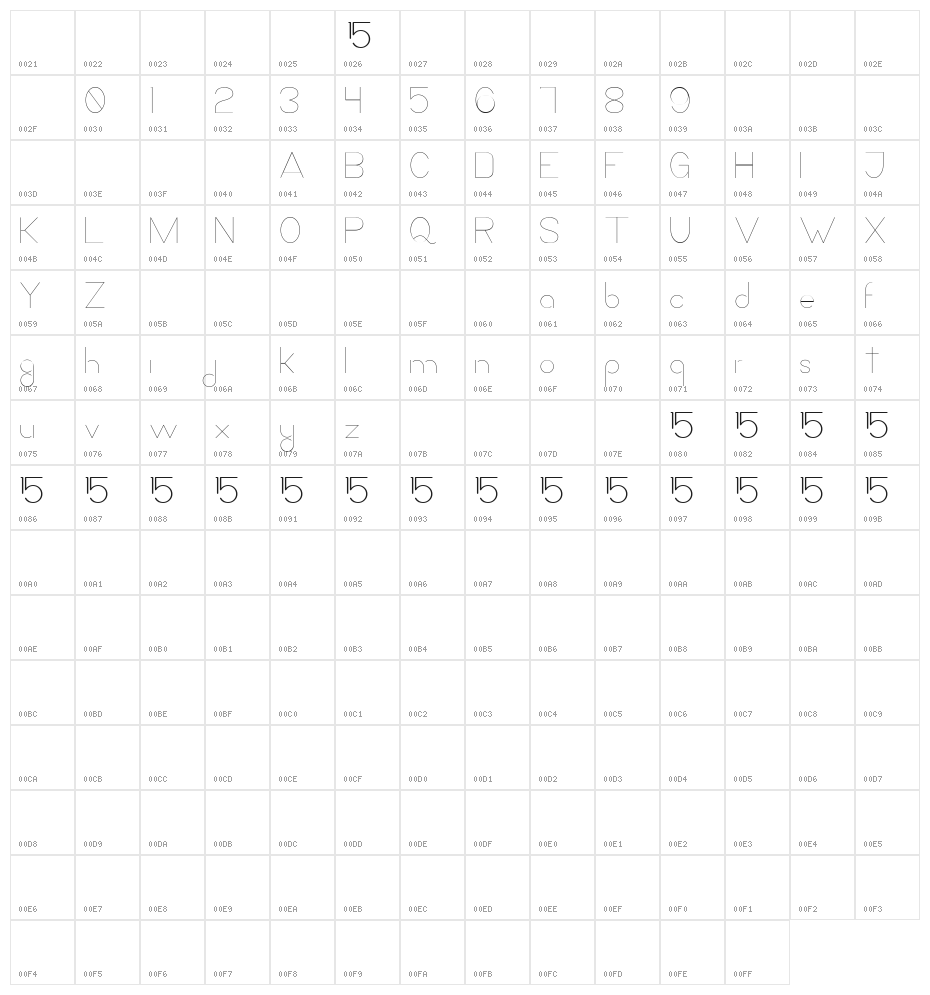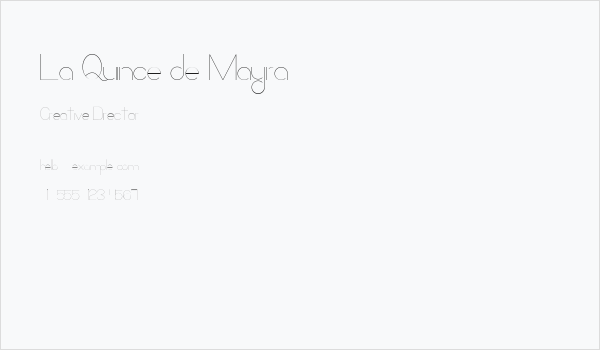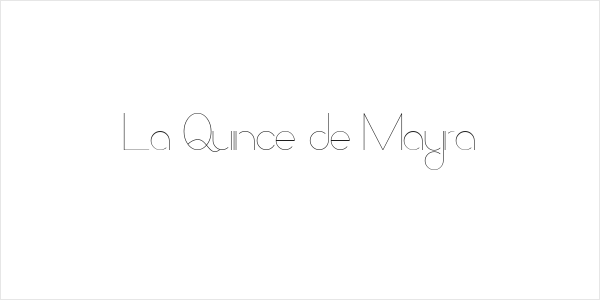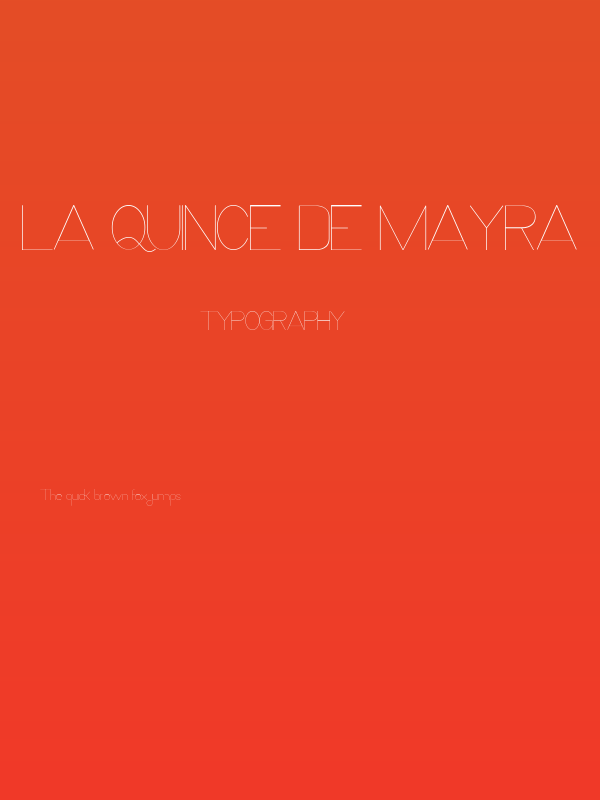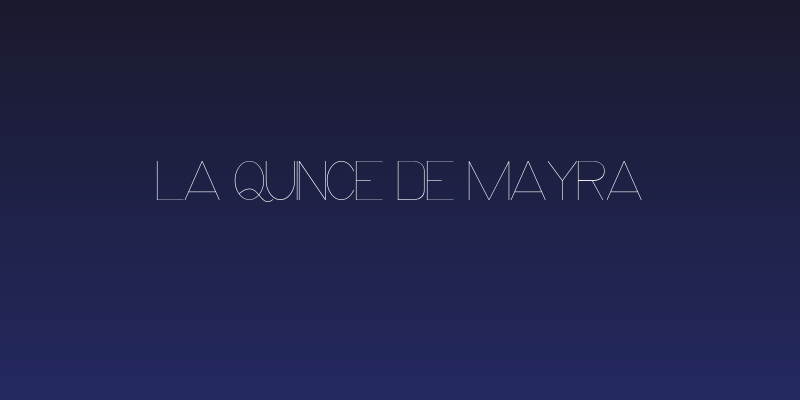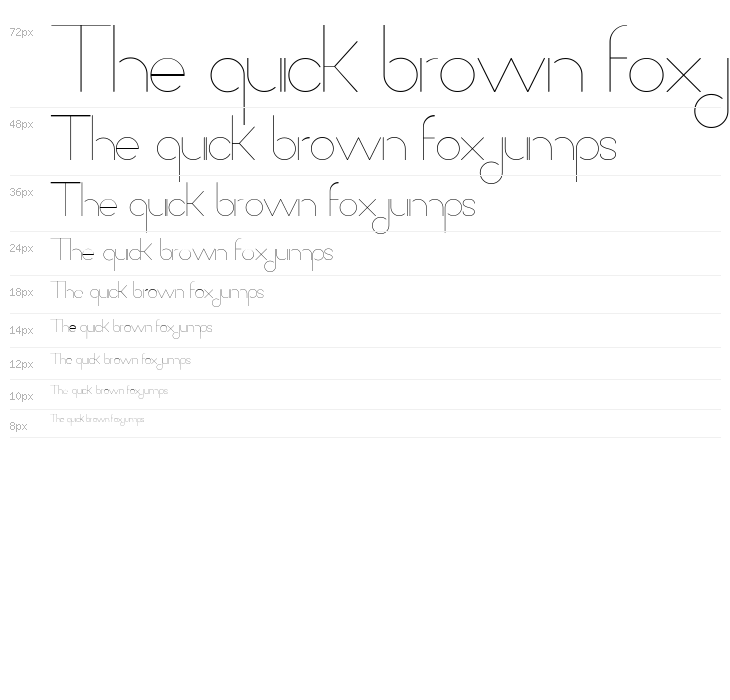
La Quince de Mayra Font
La Quince de Mayra Description
This font features a sleek, ultra-modern design with thin, elongated lines that create a sense of elegance and sophistication. The characters are constructed with a geometric precision, emphasizing clean lines and minimalistic forms. The uppercase letters are tall and narrow, while the lowercase letters maintain a consistent height, contributing to a uniform appearance. Numbers and special characters follow the same design principles, ensuring a cohesive look across all elements. The font's airy and open structure makes it ideal for projects that require a contemporary and stylish aesthetic.
| Use Case | Logos, Headlines |
| Proposed Projects | Ideal for fashion branding, luxury product packaging, modern art exhibitions, and high-end editorial design. |